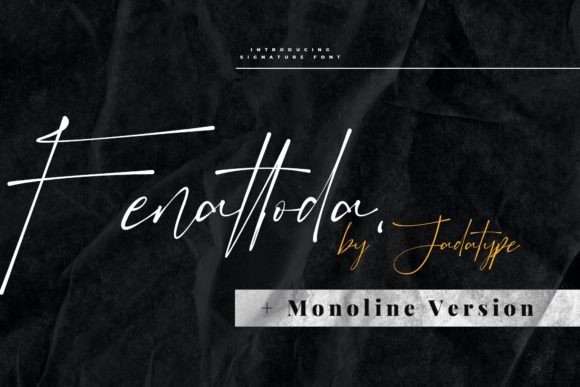
Have you ever stared at a blank canvas, wondering which font would bring your creative vision to life? For many designers, this moment is all too familiar. It’s the moment when the right font can make or break a project. That’s why we’re excited to introduce you to the Fenattoda Font, a modern and stylish script font that’s sure to captivate your audience.
The Fenattoda Font is a versatile typeface that’s perfect for branding, logos, and social media graphics. Its elegant and flowing strokes create a unique look that adds a touch of sophistication and character to any project. Whether you’re a seasoned designer or just starting out, this font is a valuable addition to your toolkit, offering endless possibilities for creative expression.
Fenattoda Font Key Features
- Font Family: Fenattoda Font is a unique, hand-drawn typeface designed to evoke a sense of elegance and sophistication.
- Character Set: Includes a wide range of characters, including uppercase and lowercase letters, numerals, punctuation marks, and special characters.
- Unique Characteristics: Features a distinctive, hand-drawn style with subtle imperfections, giving it a charming and human touch.
Fenattoda Font Review
As a designer, I was excited to try out the Fenattoda Font. Overall, I found it to be a visually appealing font, suitable for a variety of design projects.
- The font’s unique, modern design makes it stand out from more traditional fonts.
- The clean lines and minimal ornamentation give it a sleek, professional look.
- The font is highly customizable, with a wide range of styles and weights available.
- The font may not be suitable for projects that require a more classic or vintage feel.
- The font’s uniqueness may make it harder to pair with other fonts, requiring more careful selection.
Fenattoda Font is a solid choice for designers looking for a modern, customizable font. While it may have some limitations, its unique design and high level of customization make it a great option for a wide range of projects.
The Fenattoda font is perfect for creating a modern and elegant look in branding, logos, and typography-based designs.
Use the Fenattoda font to add a touch of sophistication to your website headers, social media posts, and marketing materials.
The Fenattoda font is also great for creating a cohesive look in presentations, reports, and documents.